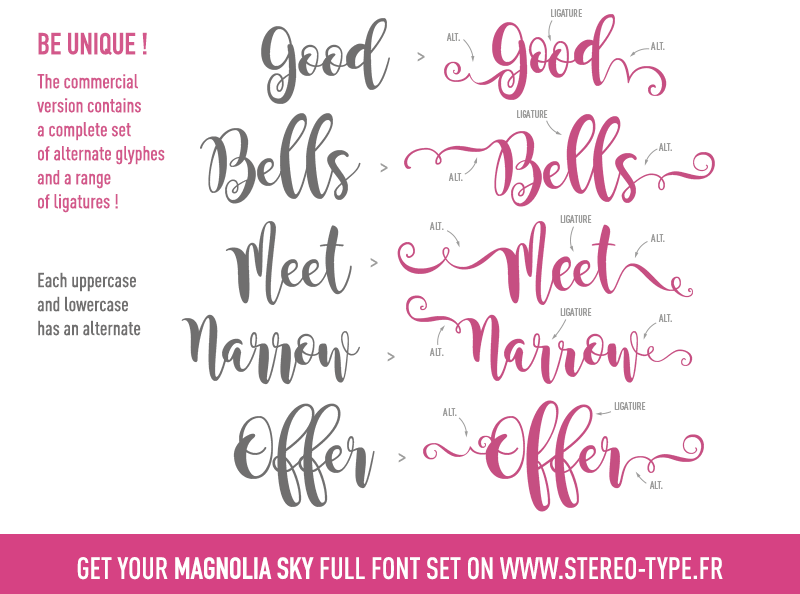
Uppercase & lowercase font stylistic. The full commercial version is provided with a set of alternate glyphes and ligatures. Double click on an otf or ttf file inside and click install font:
This Typeface Comes With The Full Set Of Glyphs.
Check out the brush fonts below, and find some great alternatives to choose from that demonstrate the same style and fun qualities as the magnolia sky typeface. Magnolia sky alternates | fonts.com source foundry: This font is free for personal use only!
This Is A Great Script Typeface That Is Smooth In Styling And Is Created Via A Smooth Brush Pen.